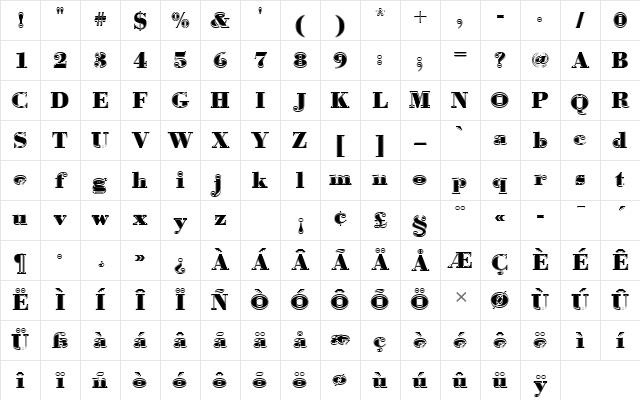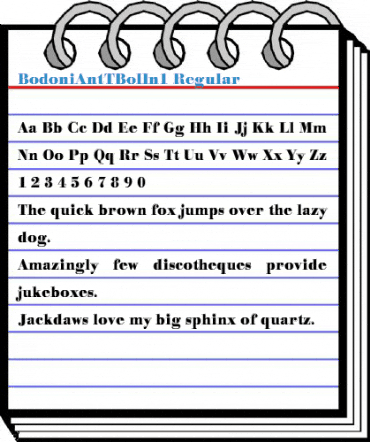
Complete BodoniAntTBolIn1 Regular glyph index. Displaying only characters natively supported by BodoniAntTBolIn1 Regular font.
BodoniAntTBolIn1 is a composed and adaptable typeface that performs quietly and consistently across a wide range of design contexts.
Pro Tip: Use BodoniAntTBolIn1 in both headline and body roles to test its range before committing to a single application.